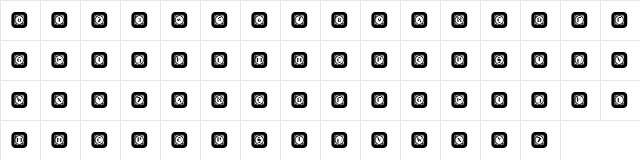
Retrospective Capitals 11 Regular
Design Context for Retrospective Capitals 11 Typeface
Retrospective Capitals 11 wears its vintage influences proudly, with letterforms that recall mid-century signage, classic packaging, and nostalgia-driven design.
Font Pairing: Combine Retrospective Capitals 11 with a simple slab or neutral sans — period-accurate companions reinforce the vintage feel without competing for attention.
Pro Tip: Lean into Retrospective Capitals 11's period character by pairing it with aged paper textures, muted colour palettes, and vintage illustration styles.